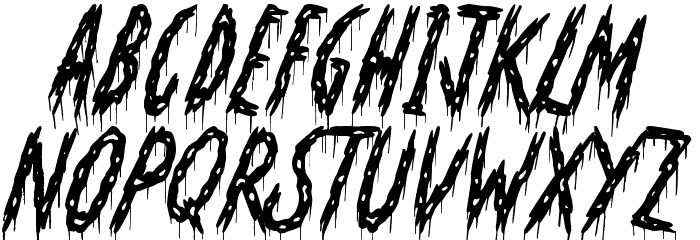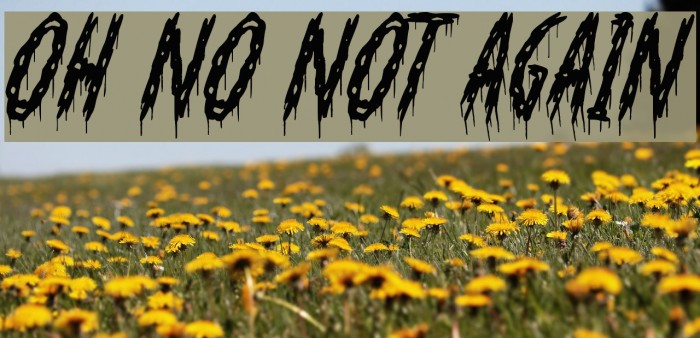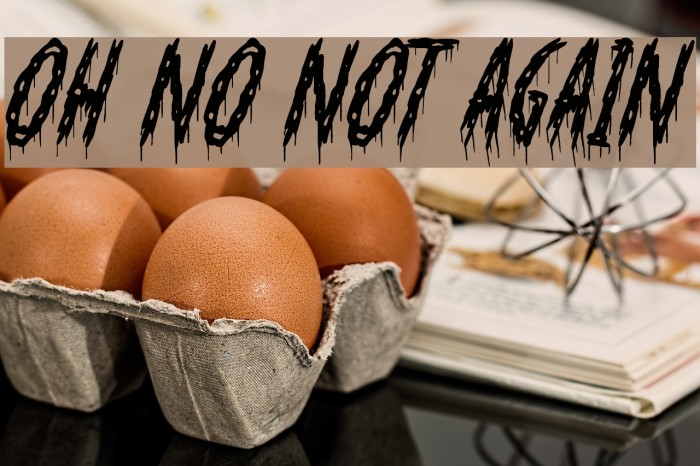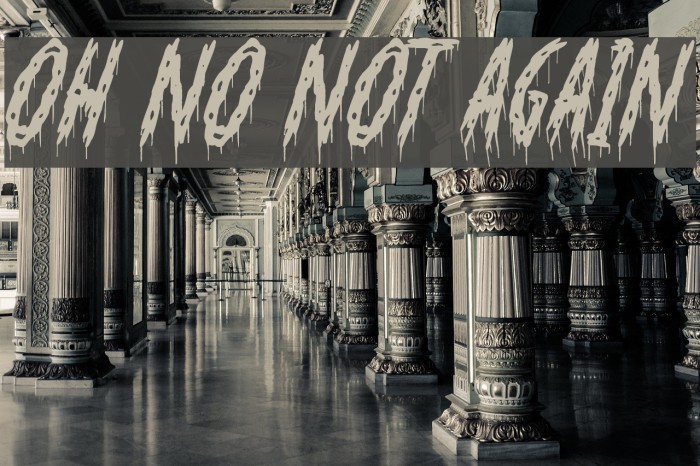
Oh No Not Again Font
This font features a dramatic and edgy design with letters that appear to be dripping or melting, giving it a horror or Halloween-themed aesthetic. The uppercase and lowercase letters maintain a consistent style, with sharp, jagged edges and a sense of movement. The overall appearance is chaotic yet controlled, making it suitable for designs that require a bold and striking visual impact. The font's unique style is perfect for creating a sense of unease or excitement, ideal for themed events or creative projects that embrace a darker or more mysterious tone.
A dramatic, dripping font with a horror-themed aesthetic.
- Proposed Projects: Ideal for Halloween posters, horror movie titles, themed event invitations, and edgy graphic designs.